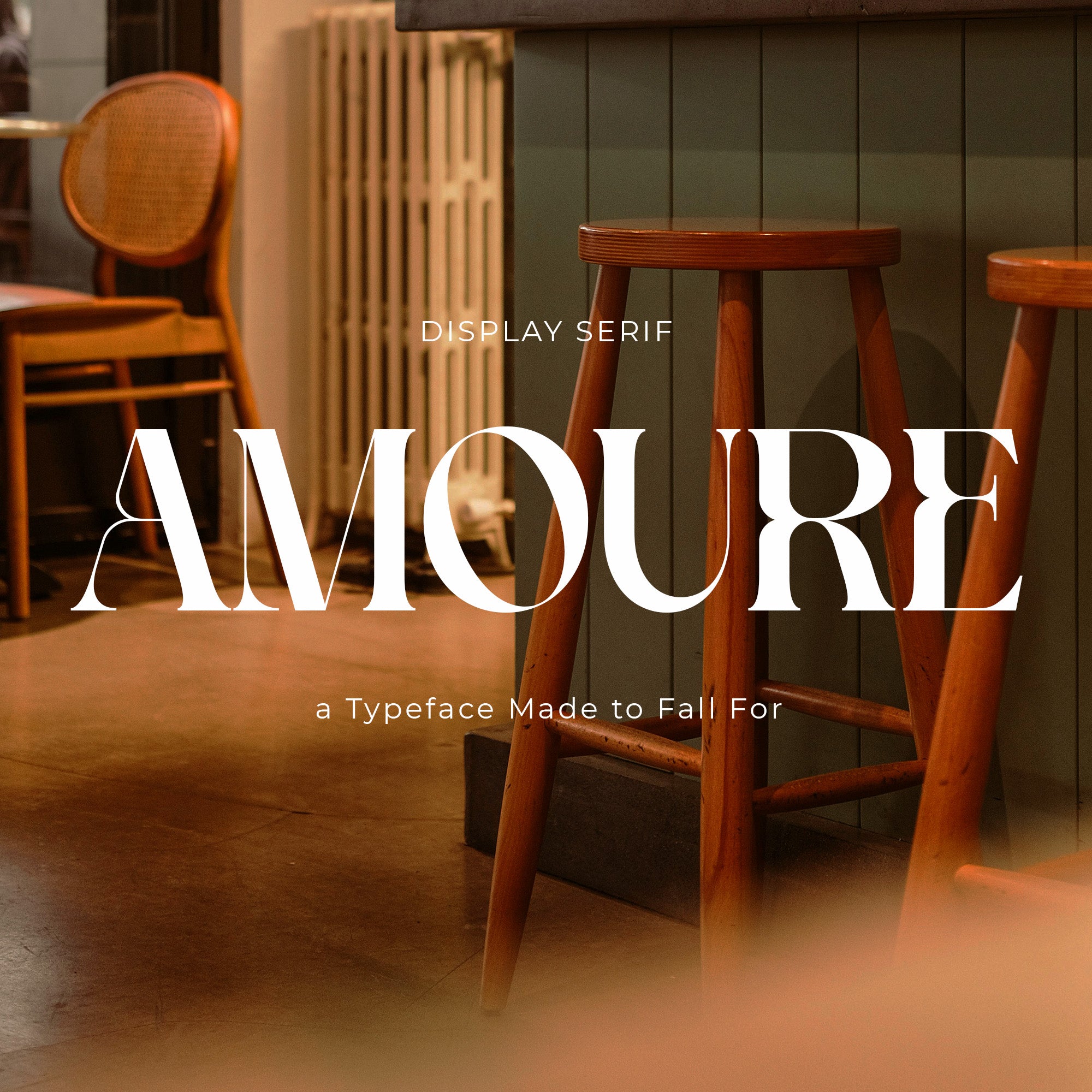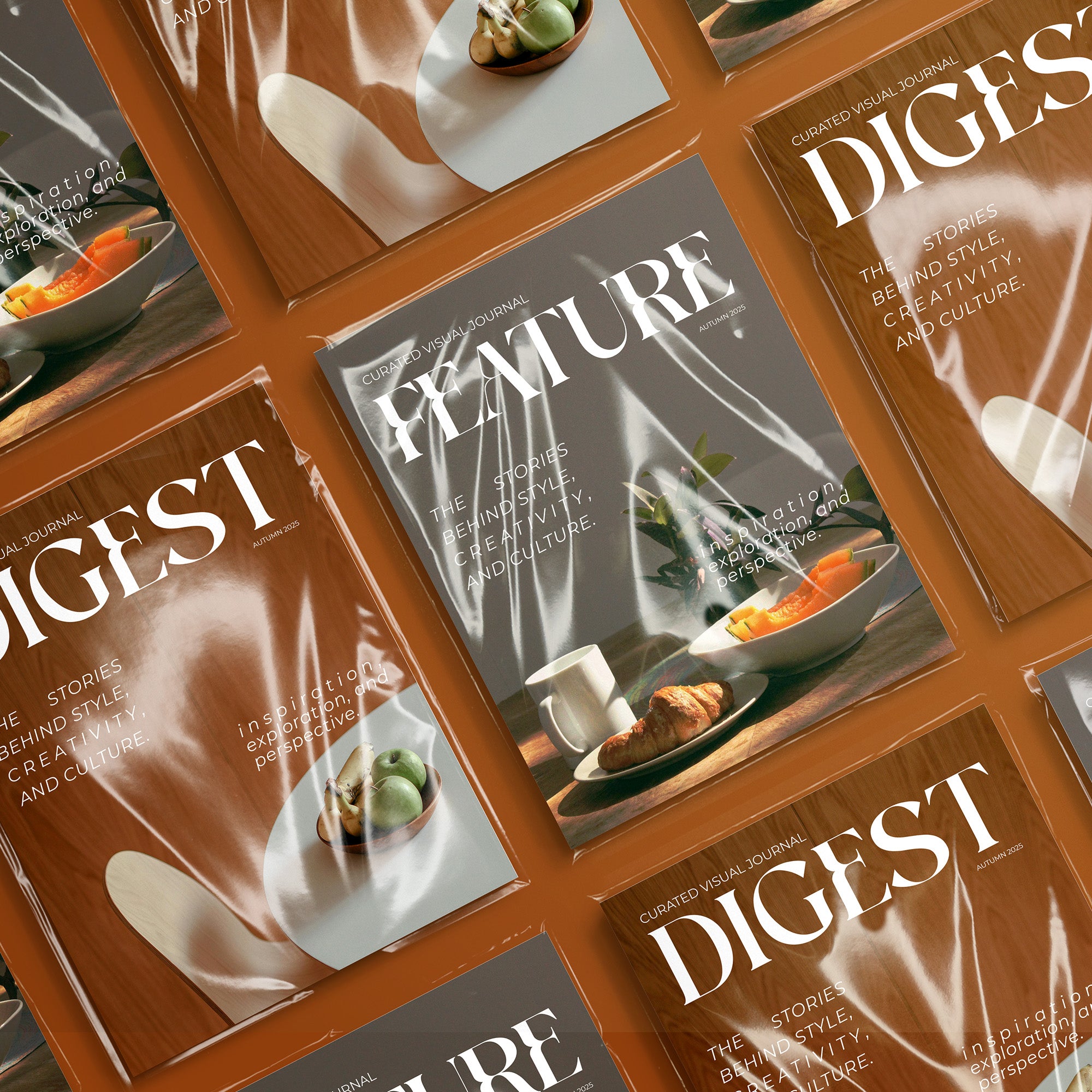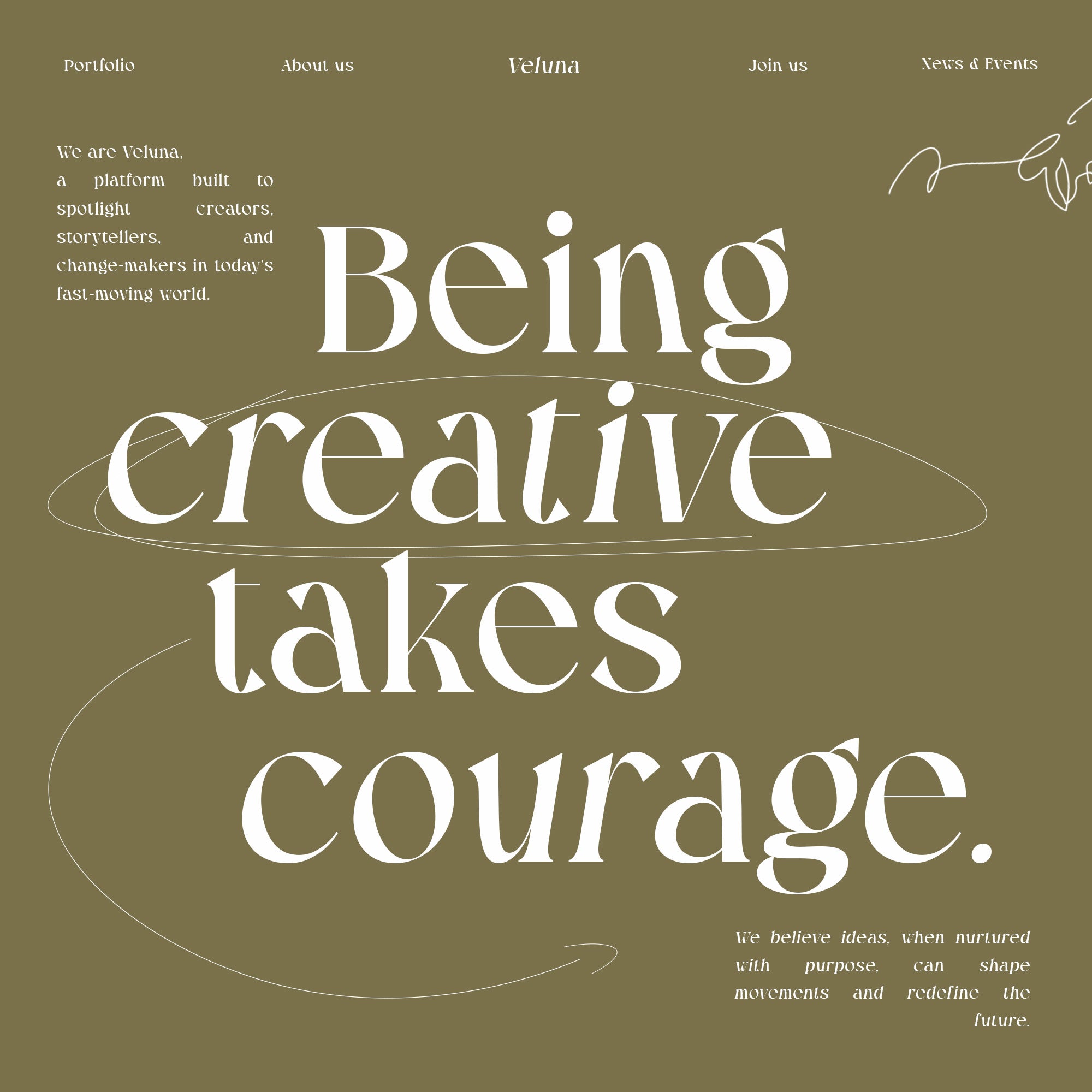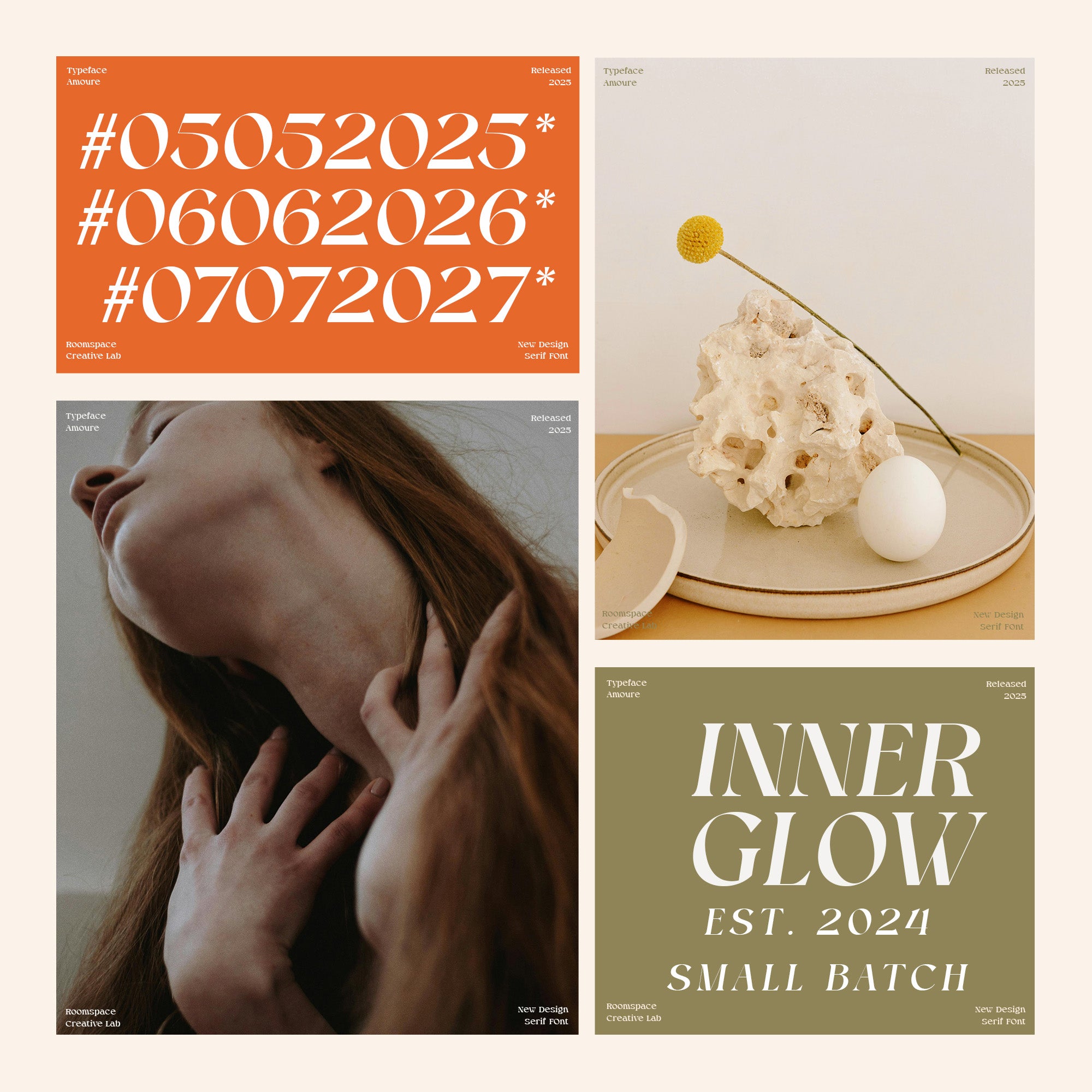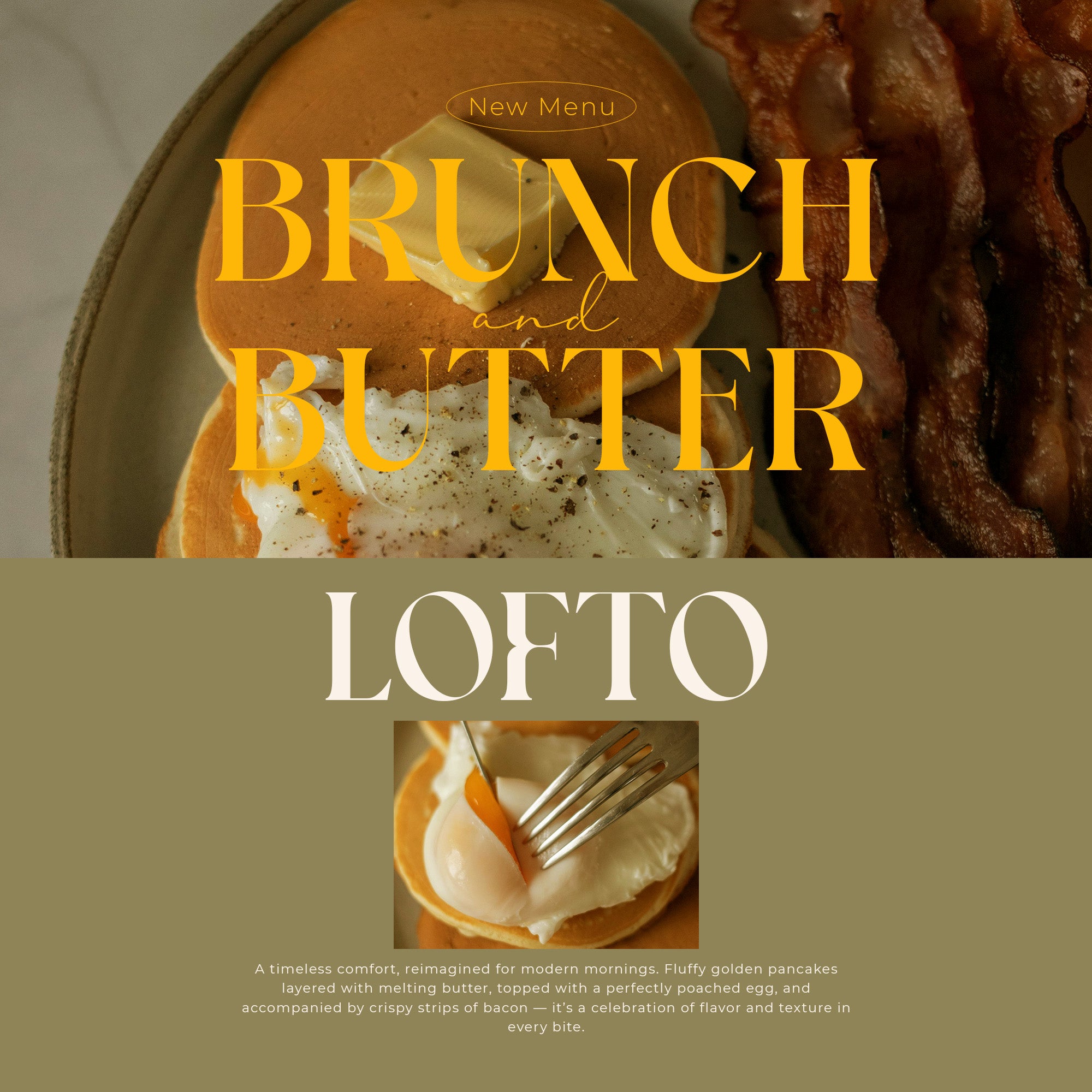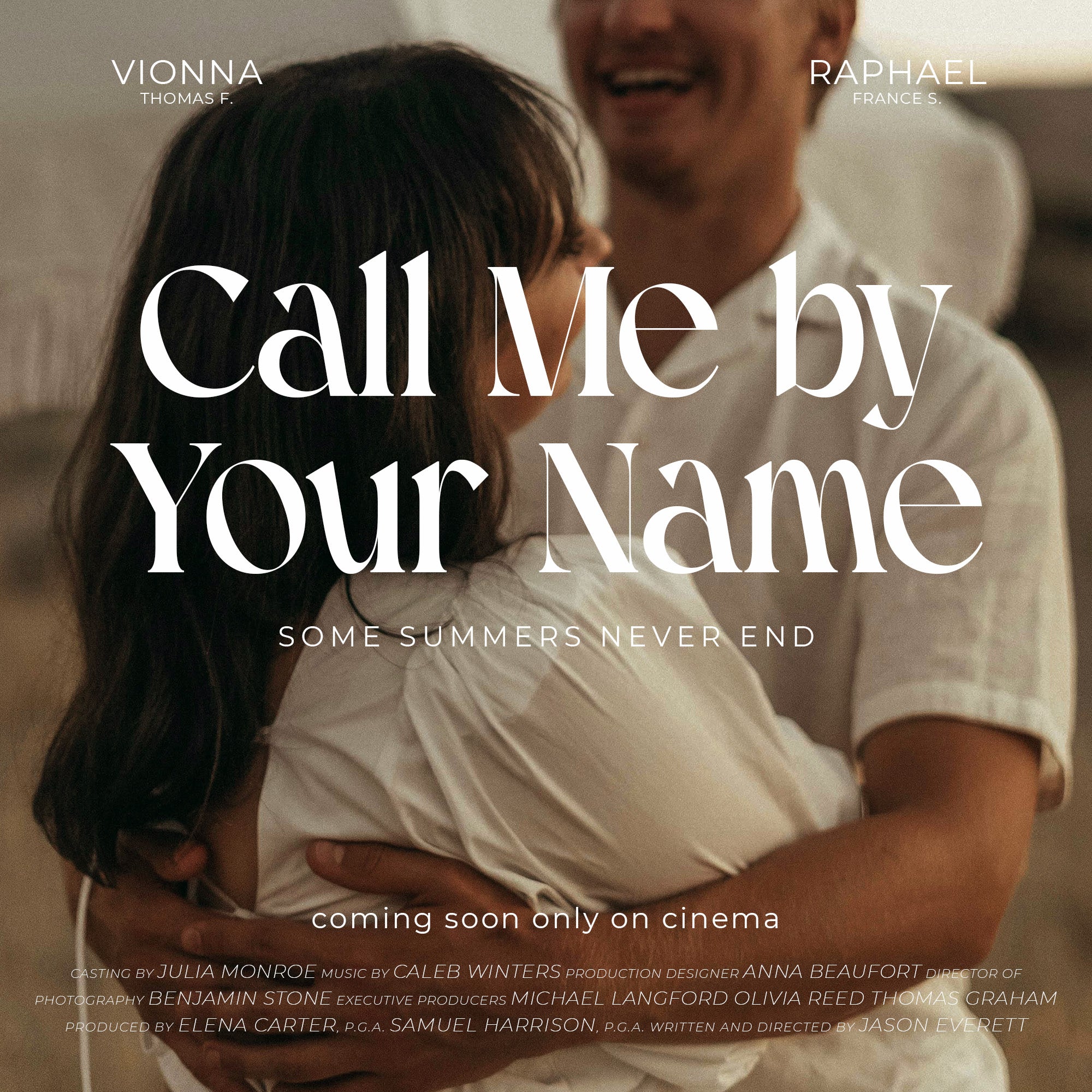
Amoure - Elegant Serif Luxury Style Romantic Font
Amoure is a romantic display serif font that blends classic charm with modern sophistication. Each letter is designed with smooth, graceful contrast creating a sense of luxury and warmth. Perfect for designers who want to bring a touch of romance and refinement to their visual work, Amoure captures the feeling of elegance that never fades. Crafted with high attention to detail, Amoure features expressive curves, sharp serifs, and precise kerning to ensure perfect balance in every composition. Its versatile design shines in both small captions and large titles, giving any layout a polished and editorial look. The font supports multilingual characters and offers refined spacing for seamless use across print and digital media. Whether used for branding, packaging, wedding invitations, magazine covers, or luxury campaigns, Amoure elevates your design with a sophisticated, heartfelt tone. Fall in love with timeless typography choose Amoure to give your brand the elegance it deserves.
Amoure is an elegant display serif font that combines classic charm with modern sophistication, featuring smooth contrasts, expressive curves, and sharp serifs. Designed with high attention to detail, it supports multilingual characters and offers refined spacing for balanced compositions in both print and digital media.